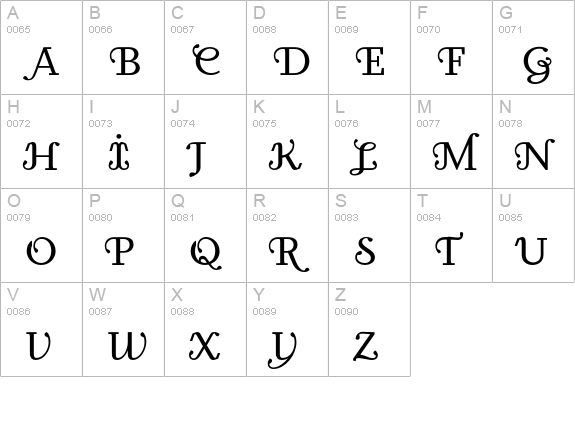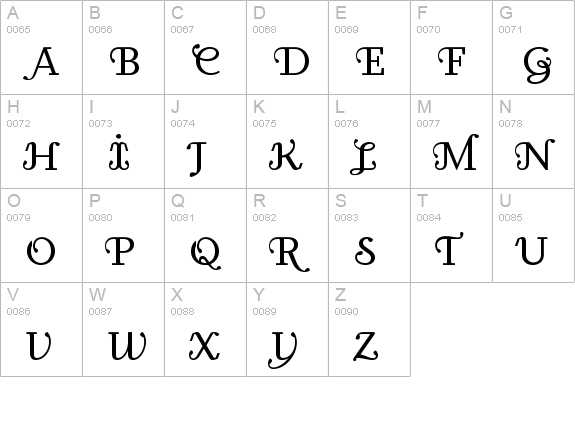
Odile-Initials Font Details
Odile-Initials font is a stunning display typeface that exudes elegance and sophistication. With its intricate details and graceful curves, this font is perfect for adding a touch of class to any design project. The ornate initials are beautifully crafted, making them ideal for creating eye-catching headlines, titles, and decorative elements. What's even better is that Odile-Initials font is available for free download at FontsMarket.com. Whether you're working on a personal project, designing for a client, or simply looking to enhance your creative arsenal, this font is a must-have in your collection. Don't miss out on the opportunity to elevate your designs with the timeless charm of Odile-Initials font - download it for free today!